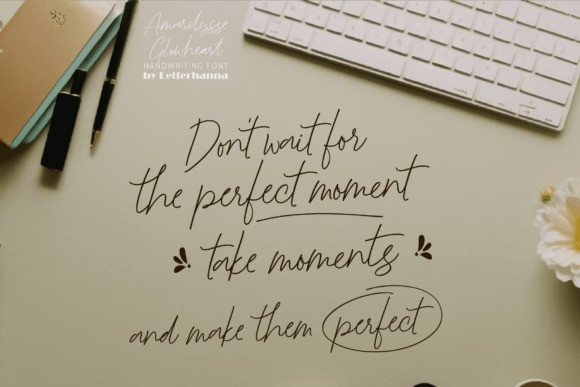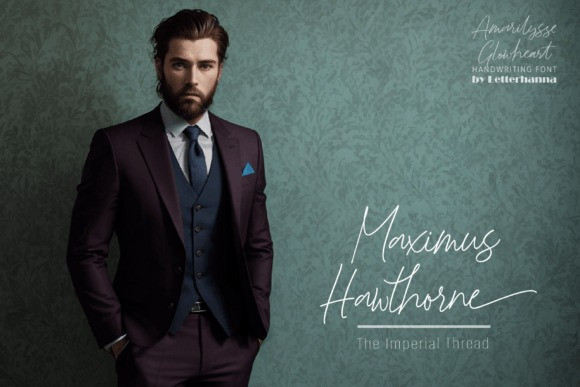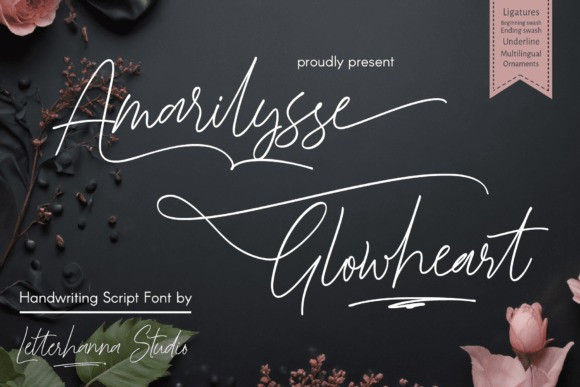
Amarilysse Glowheart Handwriting Font
Amarilysse Glowheart Handwriting Font a handwriting script font that radiates elegance and warmth with its flowing curves and heartwarming strokes. Perfect for wedding invitations, branding, social media posts, and personal projects, this versatile font exudes the charm of natural penmanship. Featuring smooth connections, elegant ligatures, swashes, and multilingual support.